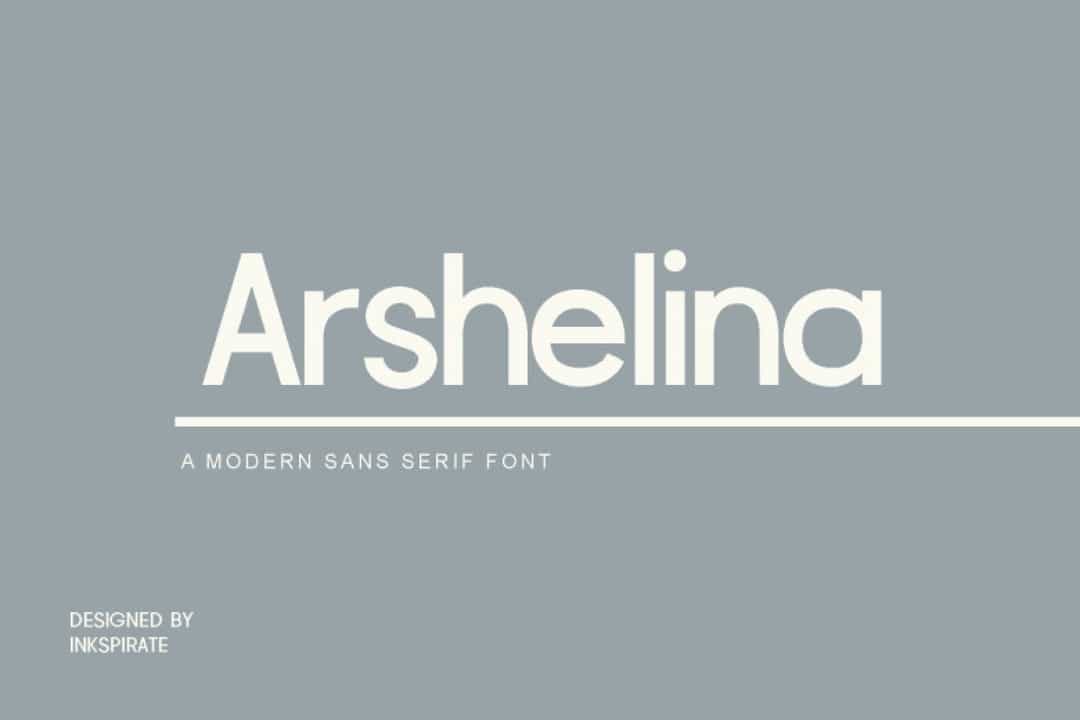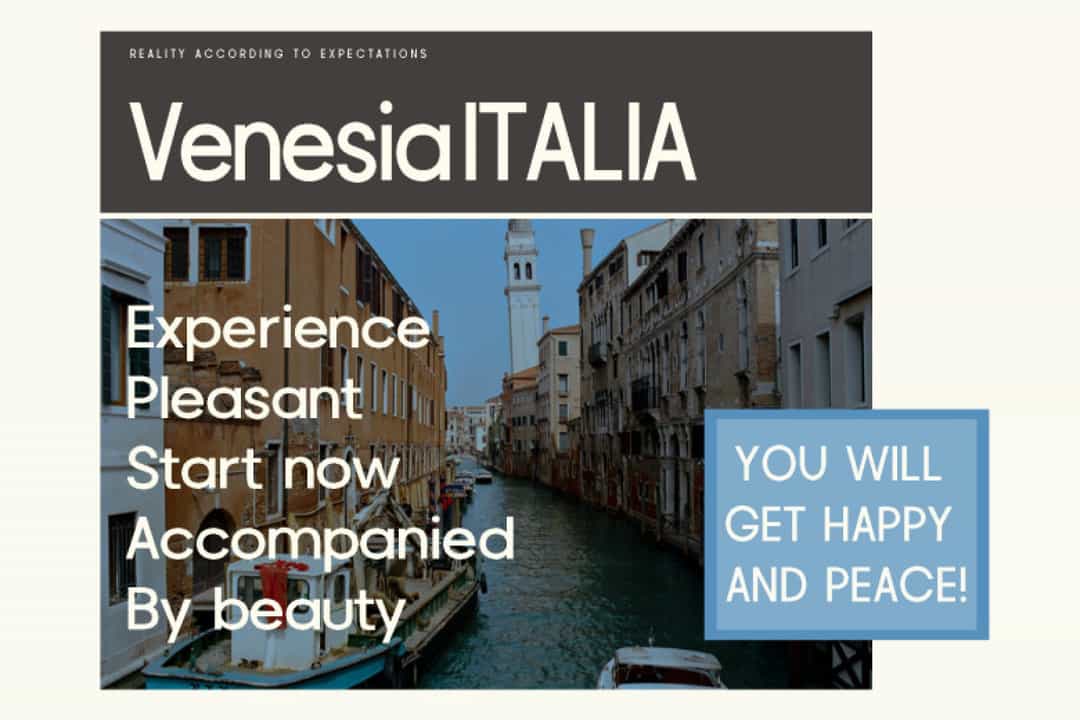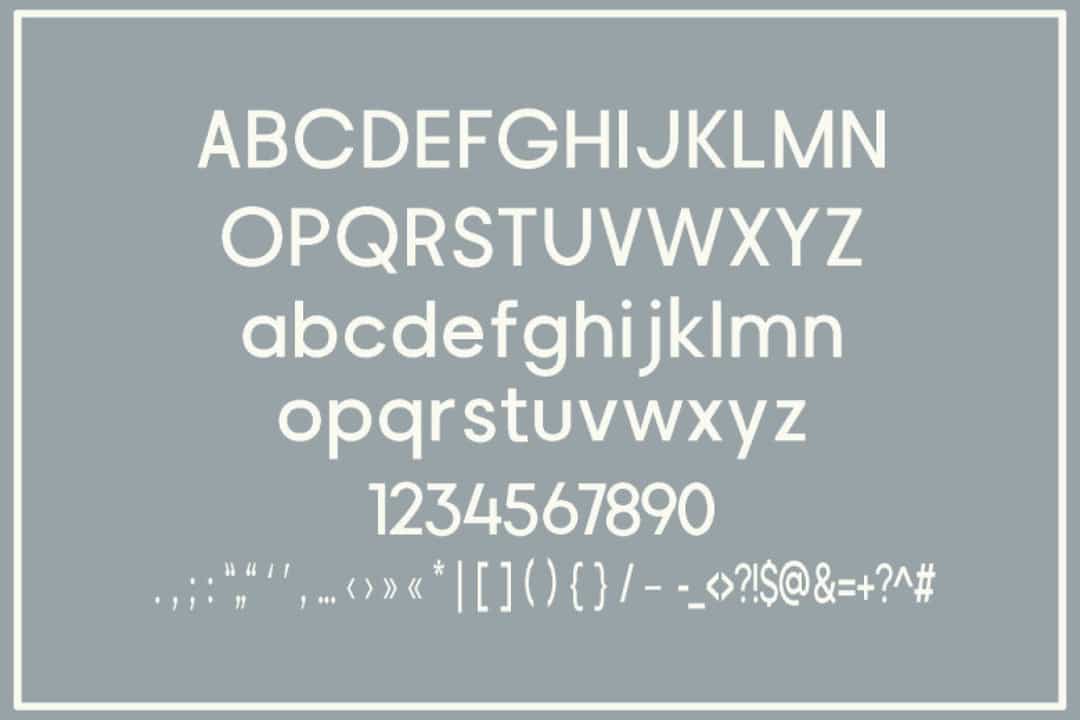
Arshelina can be best described as an elegant yet minimalist sans serif typeface, making it the ideal addition to a wide array of projects. Why not incorporate it into your creative endeavors and see how well it stands out!